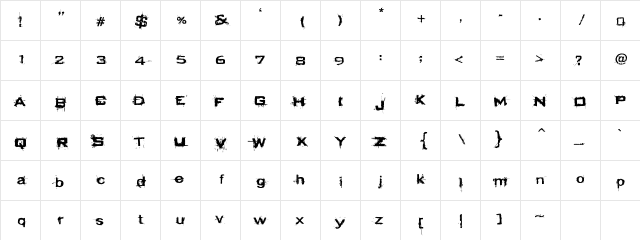
Prozac Buzz Grunge Free Font
Prozac Buzz Grunge
Style: Grunge
Designer: BoltCutterDesign
Design Context for Prozac Buzz
Prozac Buzz embraces imperfection - its rough, textured character adds raw authenticity to designs that want to feel lived-in and unconventional.